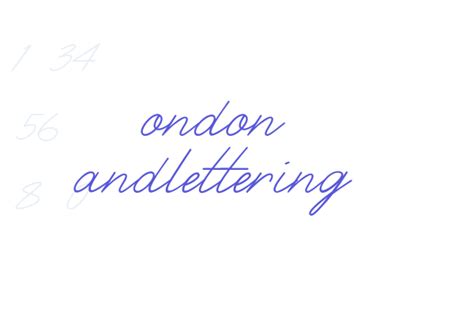
London Handlettering Font: A Stylish Guide
London Handlettering Regular Font: A Stylish Guide
Hey guys! Ever stumbled upon a font that just screams personality? Well, let me introduce you to the London Handlettering Regular Font ! This font is more than just a collection of letters; it’s a statement, a vibe, a whole aesthetic rolled into one beautifully crafted typeface. In this guide, we’re going to dive deep into everything you need to know about the London Handlettering Regular font – its history, its uses, its charm, and how you can get your hands on it. Get ready to level up your design game, because this font is about to become your new best friend!
Unveiling the London Handlettering Font
So, what’s the deal with the London Handlettering Regular Font ? It’s a typeface that captures the essence of classic hand-lettering, but with a modern twist. Imagine the elegance of a skilled calligrapher, the creativity of a street artist, and the accessibility of a digital font – that’s the London Handlettering Regular font in a nutshell. This font typically features a clean, legible design that is versatile enough to be used in a variety of projects. Whether you’re crafting a logo, designing a website, or creating eye-catching social media posts, this font has got you covered. The beauty of the London Handlettering Regular font lies in its ability to bring a touch of human warmth and personality to your designs. It’s a fantastic alternative to the often-sterile feel of standard sans-serif fonts, and can give your work a unique and memorable flair. The London Handlettering Regular Font is designed to be easily readable, even at smaller sizes, making it an excellent choice for body text as well. Its versatility doesn’t end there; it works beautifully in both digital and print media, ensuring consistency across all your design applications. From creating elegant invitations to designing engaging marketing materials, the London Handlettering Regular Font offers endless possibilities. It’s also an excellent choice for creating a cohesive brand identity that showcases a blend of modernity and classic hand-lettering styles. The font is regularly updated to include the latest design elements and support more languages. This means that users can always get the most out of the design, regardless of their project. With this font, you’re not just choosing a typeface, you’re choosing a piece of art that can transform your work from ordinary to extraordinary. Let’s explore its distinctive features and why this font is a must-have for all creative projects!
Diving into the Design and Features
Let’s get into the nitty-gritty of the London Handlettering Regular Font ! This font is known for its carefully crafted design that brings a unique charm to any project. One of the most noticeable features is its smooth, flowing letterforms . The designers have paid attention to every curve and stroke, ensuring a visually appealing experience. The consistent weight across each letter is another standout feature, giving a balanced look to the overall text. The London Handlettering Regular Font also boasts excellent readability, a crucial aspect in any design. The clear design ensures that the message is conveyed effectively, whether it’s used in headlines or body text. The font typically includes a wide range of characters, including upper and lower case letters, numbers, punctuation marks, and sometimes even special characters and ligatures. This comprehensive set makes it suitable for diverse design needs. This extensive character set ensures that users have all the necessary tools to create outstanding visual experiences. The character designs blend the traditional elegance of hand-lettering with modern design sensibilities. This unique balance ensures that your designs stand out while maintaining an approachable feel. The font’s inherent versatility allows you to use it in a wide array of applications, from personal projects to professional branding. The design is meticulously crafted to be visually stunning, yet simple enough to be used in various design applications. Furthermore, the font typically provides excellent kerning and spacing, which contribute to its overall legibility and aesthetic appeal. This ensures that the letters are appropriately spaced for a comfortable reading experience, whether on a screen or in print. This attention to detail reflects the font’s high quality and usability, solidifying its place in the world of design. Let’s find out where this font works best!
Best Uses and Applications
Now, let’s talk about where the London Handlettering Regular Font truly shines! This font is incredibly versatile, making it perfect for a wide range of applications. Think about creating a logo – the font’s elegant style can make your brand instantly recognizable and memorable. It’s a fantastic choice for any brand looking to express a sophisticated, yet approachable feel. Website design is another area where the London Handlettering Regular Font excels. The font can add a touch of personality to your site, making it more engaging for visitors. It is perfect for headers, subheadings, and even body text. This flexibility enables designers to bring a distinctive aesthetic to their web projects. If you’re into social media, you can use it to create engaging graphics, quotes, and posts that will grab your audience’s attention. It’s great for quotes, announcements, or any content where you want to add a touch of personality. Invitations and stationery also come to mind. Imagine using this font to design wedding invitations, birthday cards, or personalized letters – it adds a touch of sophistication and warmth that standard fonts can’t match. This font adds a special touch to all your personal and professional communications. When it comes to print design, the font looks great in magazines, brochures, and posters. Its versatility enables it to adapt to various media while retaining its stylish appeal. From advertisements to editorial designs, the London Handlettering Regular Font offers design options that are sure to leave a lasting impression. This font is a great way to showcase creativity and artistic expression. Whether you are a professional designer or a hobbyist, using this font can significantly elevate the quality of your projects, giving them a unique identity. This font is ready to be implemented in a diverse range of projects! This font is the perfect choice for anyone looking to add a touch of elegance and personality to their designs.